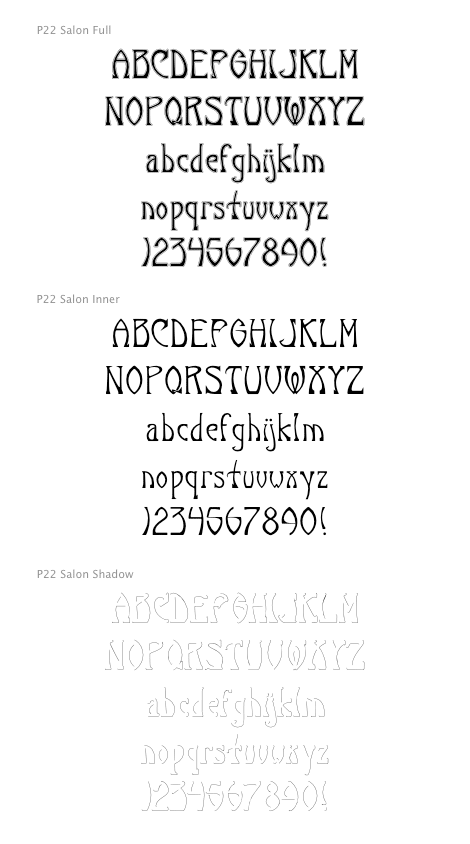
P22 Salon was originally inspired by Art Nouveau lettering. In the development of the three fonts (P22 Salon Full, P22 Salon Inner and P22 Salon Shadow) they began taking on a slightly more modern feel. All three variations were designed to be completely interchangeable with one another, and can be layered to achieve a variety of effects.PLEASE NOTE:
P22 Salon Inner is spaced and kerned to fit exactly with the other two fonts in its family. However, it is suggested that if used on it's own, the overall spacing be tightened slightly.